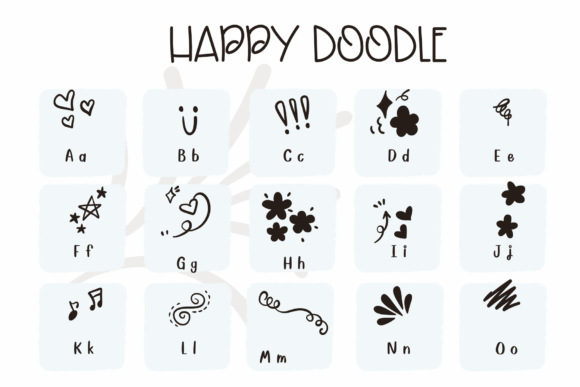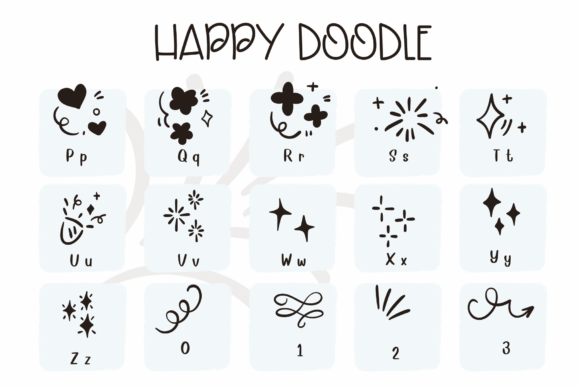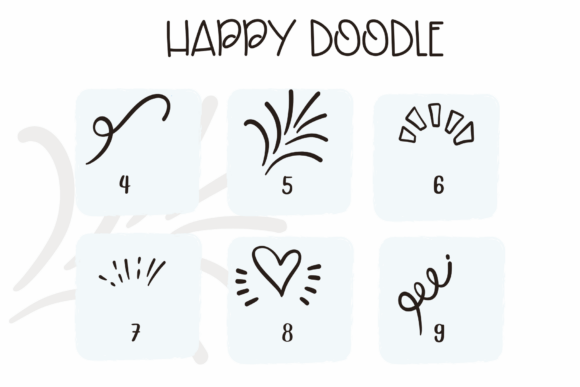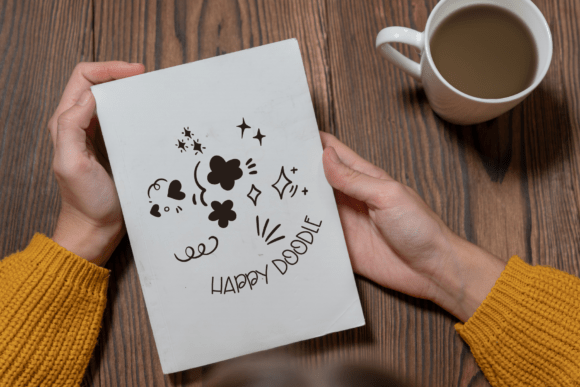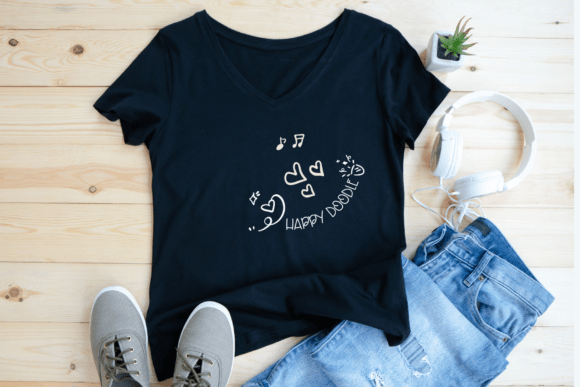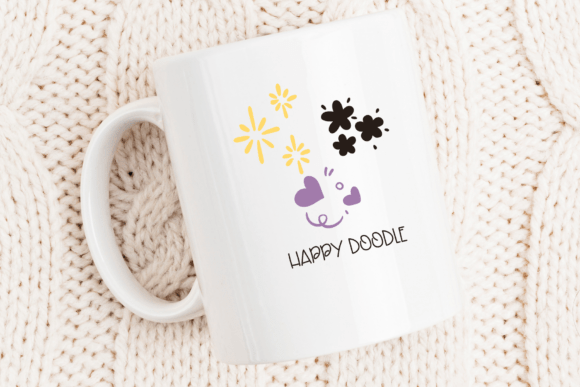
Introducing the Happy Doodle Font: Unleash Playfulness and Creativity in Your Designs
Are you tired of using the same old fonts in your designs? Do you want to add a touch of playfulness and creativity to your projects? Look no further than the Happy Doodle font! This lively dingbat decorative typeface is packed with hand-drawn icons that radiate joy and whimsy, making it perfect for designers and crafters looking to add a fun, handmade touch to their work.
What is the Happy Doodle Font?
The Happy Doodle font is a unique and versatile typeface that features a wide range of hand-drawn icons, including hearts, stars, flowers, musical notes, swirls, bursts, and celebratory doodles. These icons are intricately designed with smooth lines and a casual, whimsical style, giving the font a charming and personality-filled feel.
Perfect for Crafts, Invitations, and Social Media Graphics
The Happy Doodle font is ideal for a variety of design projects, including crafts, invitations, planners, stickers, scrapbooks, and social media graphics. Its playful and creative vibe makes it perfect for designers who want to add a touch of fun and personality to their work. Whether you’re creating a handmade card, a party invitation, or a social media post, this font is sure to bring a smile to your audience’s face.
Versatile Icons for Endless Design Possibilities
One of the best things about the Happy Doodle font is its versatility. The font comes with a wide range of icons that can be used in a variety of design contexts. From simple and elegant designs to more complex and playful ones, the Happy Doodle font has got you covered. You can use the icons to create:
- Handmade cards and invitations
- Decorative borders and frames
- Fun and playful graphics for social media
- Custom stickers and washi tape
- Unique and personalized planners and journals
Why Choose the Happy Doodle Font?
So why choose the Happy Doodle font over other fonts? Here are just a few reasons:
- Unique and playful design: The Happy Doodle font has a one-of-a-kind design that is sure to stand out in any design project.
- Versatile icons: The font comes with a wide range of icons that can be used in a variety of design contexts.
- Perfect for designers and crafters: The Happy Doodle font is ideal for both designers and crafters who want to add a touch of playfulness and creativity to their work.
Tips for Using the Happy Doodle Font
Here are a few tips for using the Happy Doodle font in your design projects:
- Mix and match icons: Don’t be afraid to mix and match different icons to create a unique and playful design.
- Experiment with colors: The Happy Doodle font looks great in a variety of colors, so don’t be afraid to experiment and find the perfect color scheme for your design.
- Use it for titles and headings: The Happy Doodle font is perfect for titles and headings, but you can also use it for body text and other design elements.